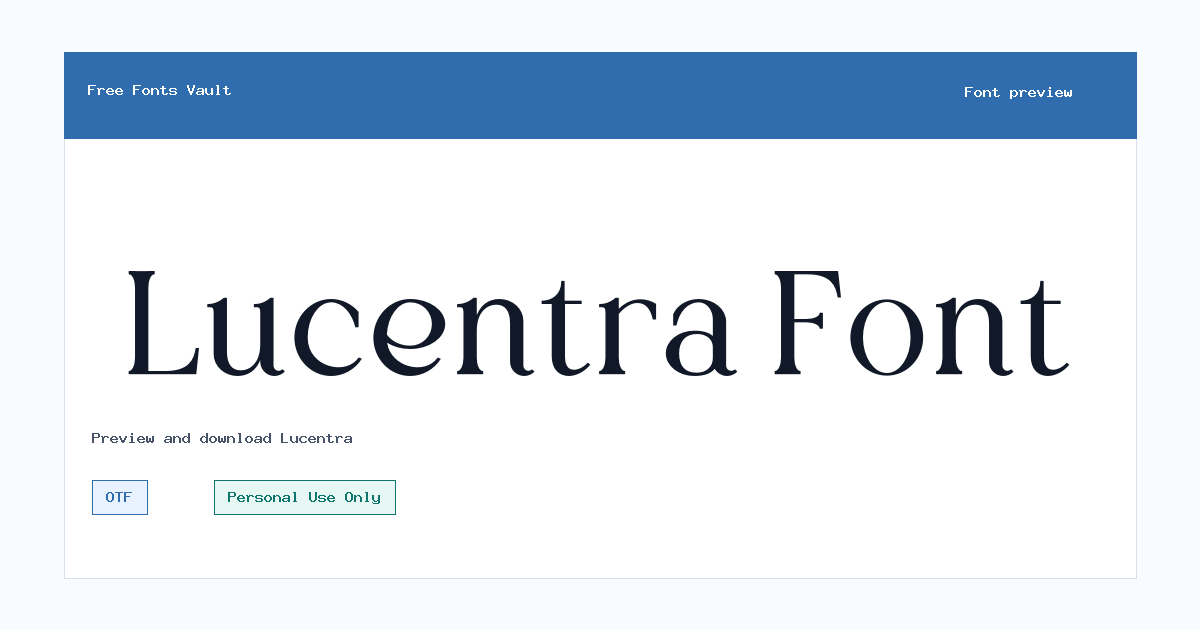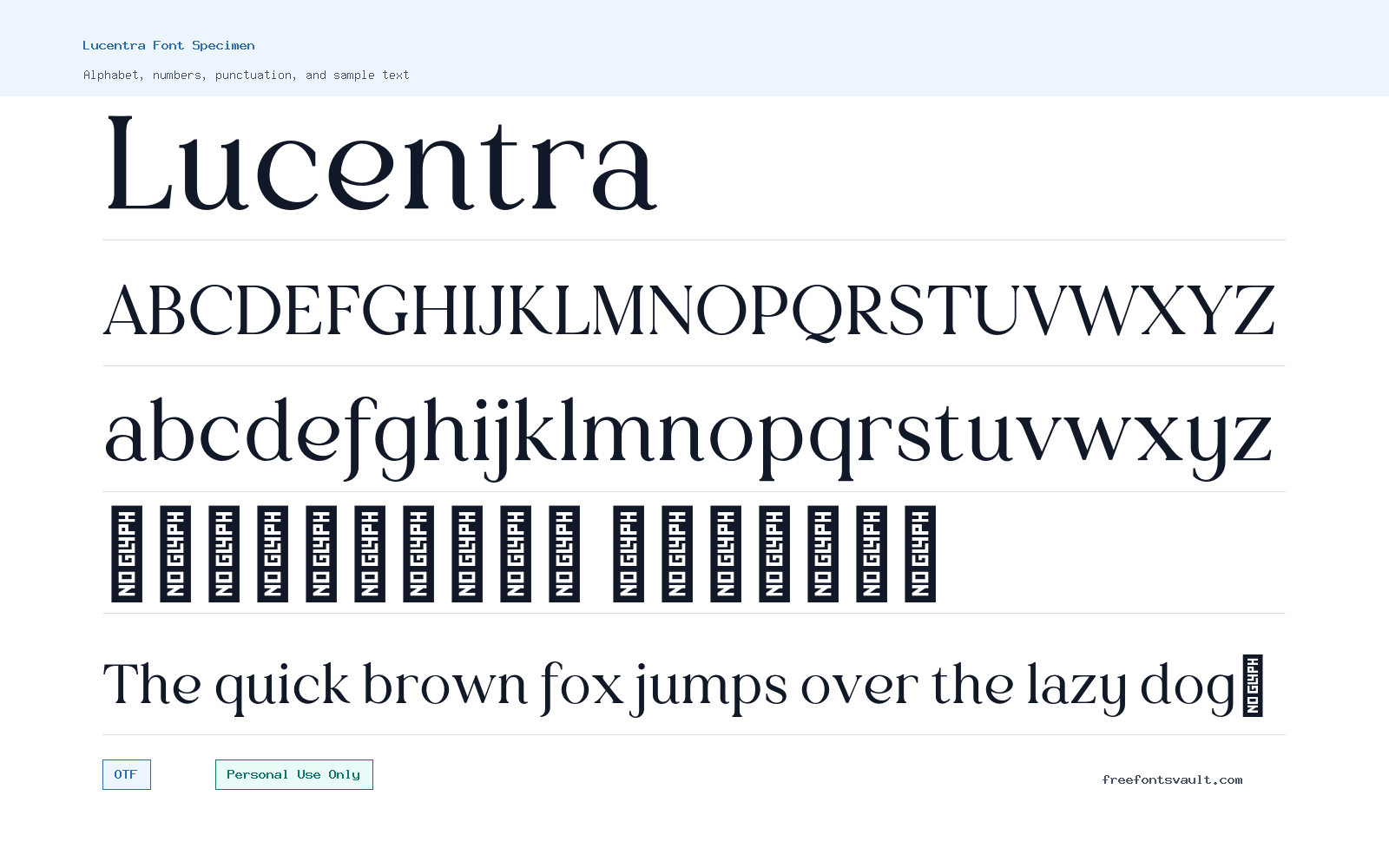
Lucentra
Lucentra is a serif font with a regular-weight style, suited to visitors who want a clean typeface for testing headings, display text, and personal design drafts.
About Lucentra Font
Lucentra comes as an OTF font file in a regular style. The serif classification makes it a good option to try when you want letters with more structure than a plain sans serif, especially for titles, invitations, quote graphics, simple branding mockups, and decorative text layouts. Since only one regular style is included, it is best to preview the font at the exact size you plan to use rather than assuming it will behave like a full family with bold, italic, or multiple weights.
Use the preview box to test Lucentra with real words before downloading. Try short titles, names, dates, and phrases with mixed uppercase and lowercase letters. Also check punctuation, numbers, and any accented characters you need for your project. If the font feels too detailed at small sizes, keep it for larger display text and pair it with a simpler body font for longer reading. For a balanced layout, let Lucentra handle the main heading while a neutral sans serif or readable text serif carries paragraphs, captions, and navigation.
- Serif font style for headings, display text, and personal design mockups
- Personal posters, invitations, quote images, and title graphics
- Previewing serif lettering for logos, name designs, and layout drafts
What style of font is Lucentra?
Lucentra is identified as a serif font with a regular weight. It is a good candidate for display text, headings, and short decorative settings.